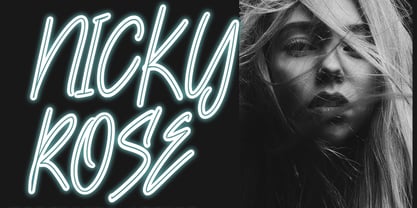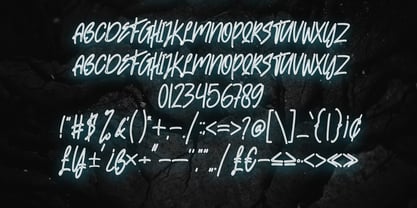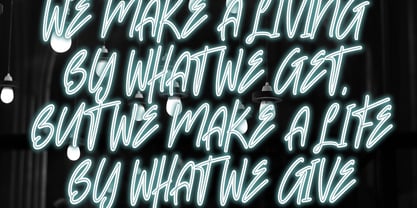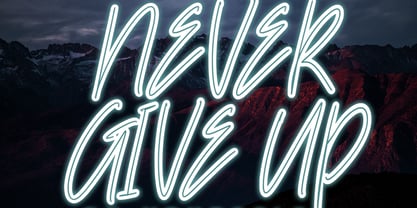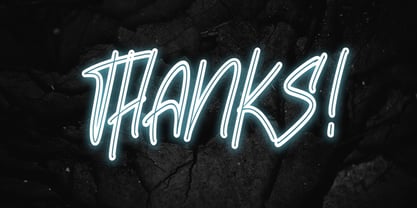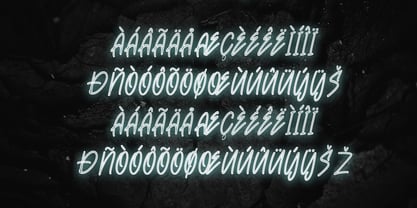
Beslyn
by Skiiller Studio
The Beslyn Font Family was designed by Irfan Mahmudin and published by Skiiller Studio. Beslyn contains 1 styles.
Beslyn is a bold graffiti-style font with energetic strokes and a striking neon effect that delivers a strong urban attitude. Inspired by street art and modern display lettering, this font is perfect for posters, music artwork, branding, apparel, logos, social media graphics, and creative designs that need a powerful, edgy, and contemporary look....
Designers: Irfan Mahmudin
Publisher: Skiiller Studio
Foundry: Skiiller Studio